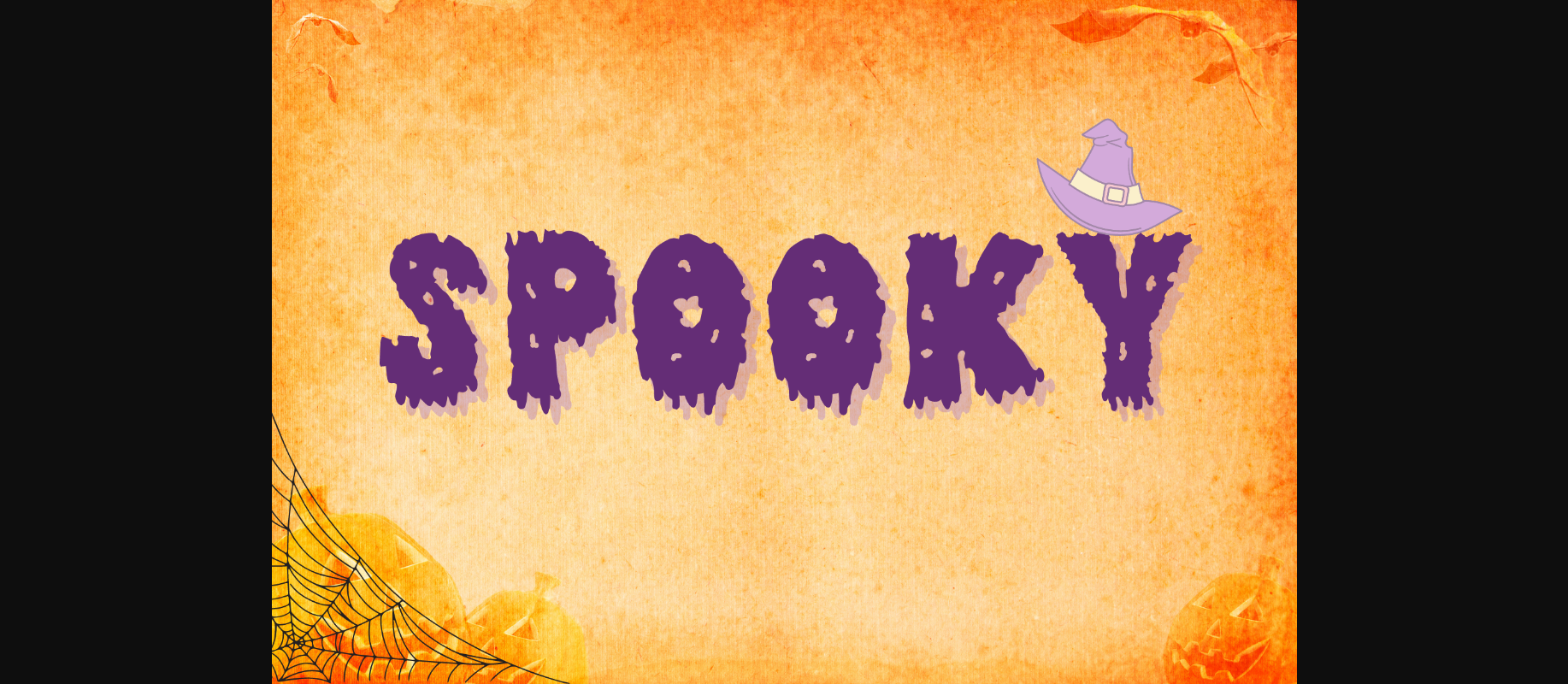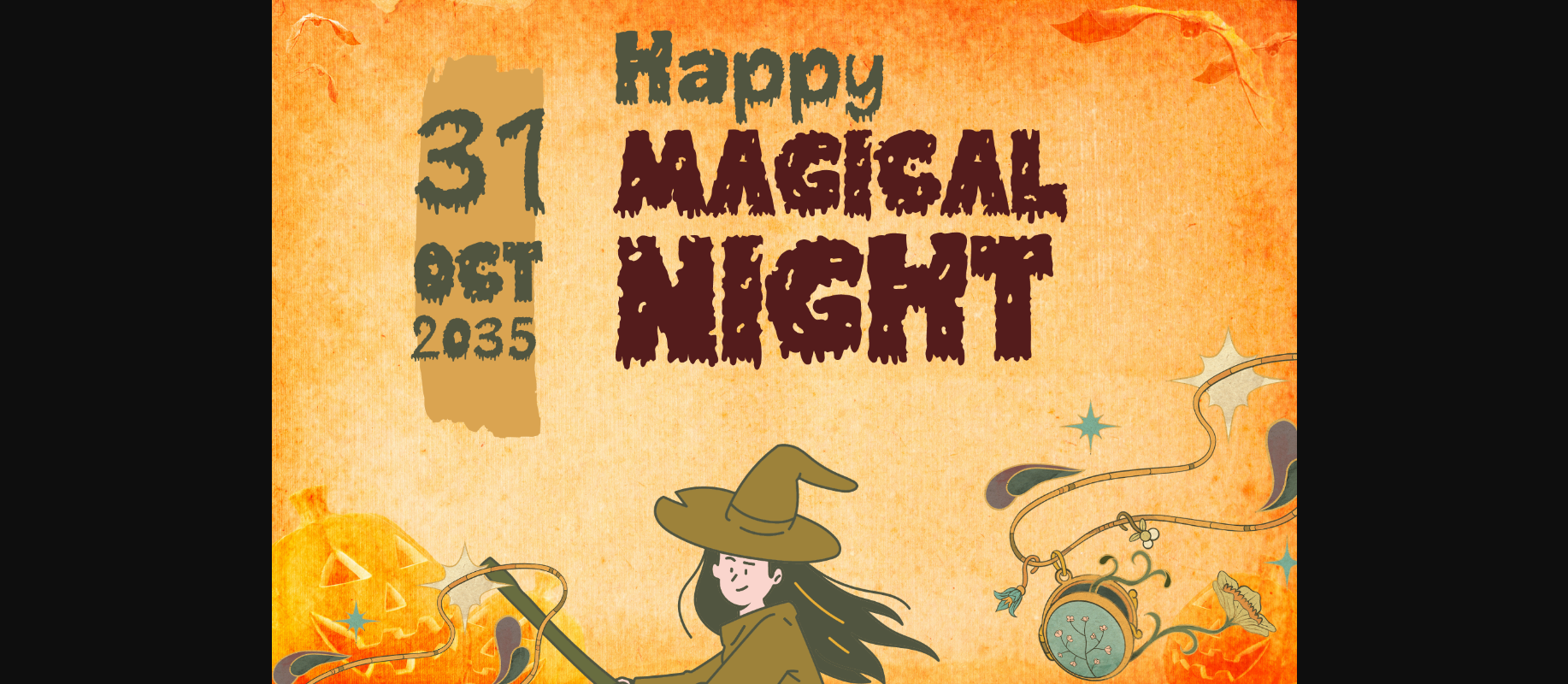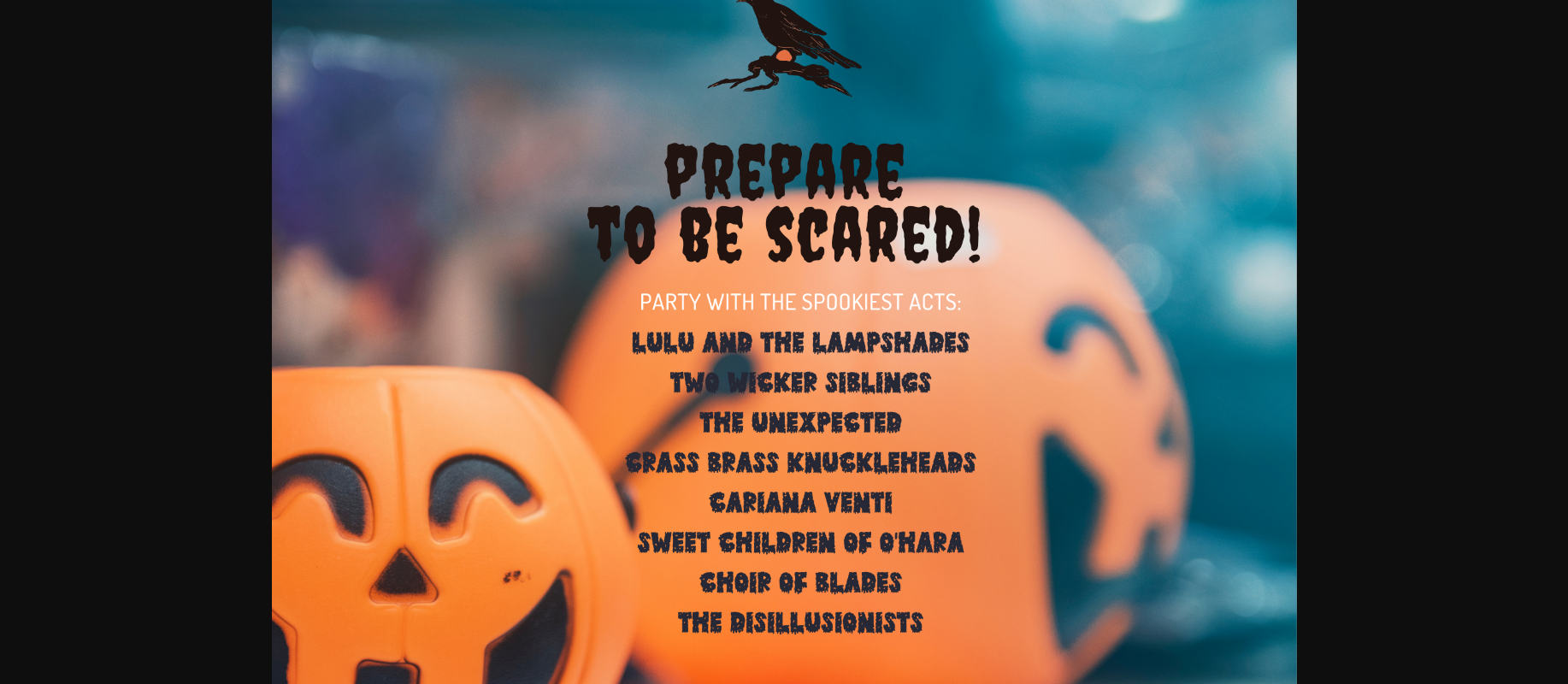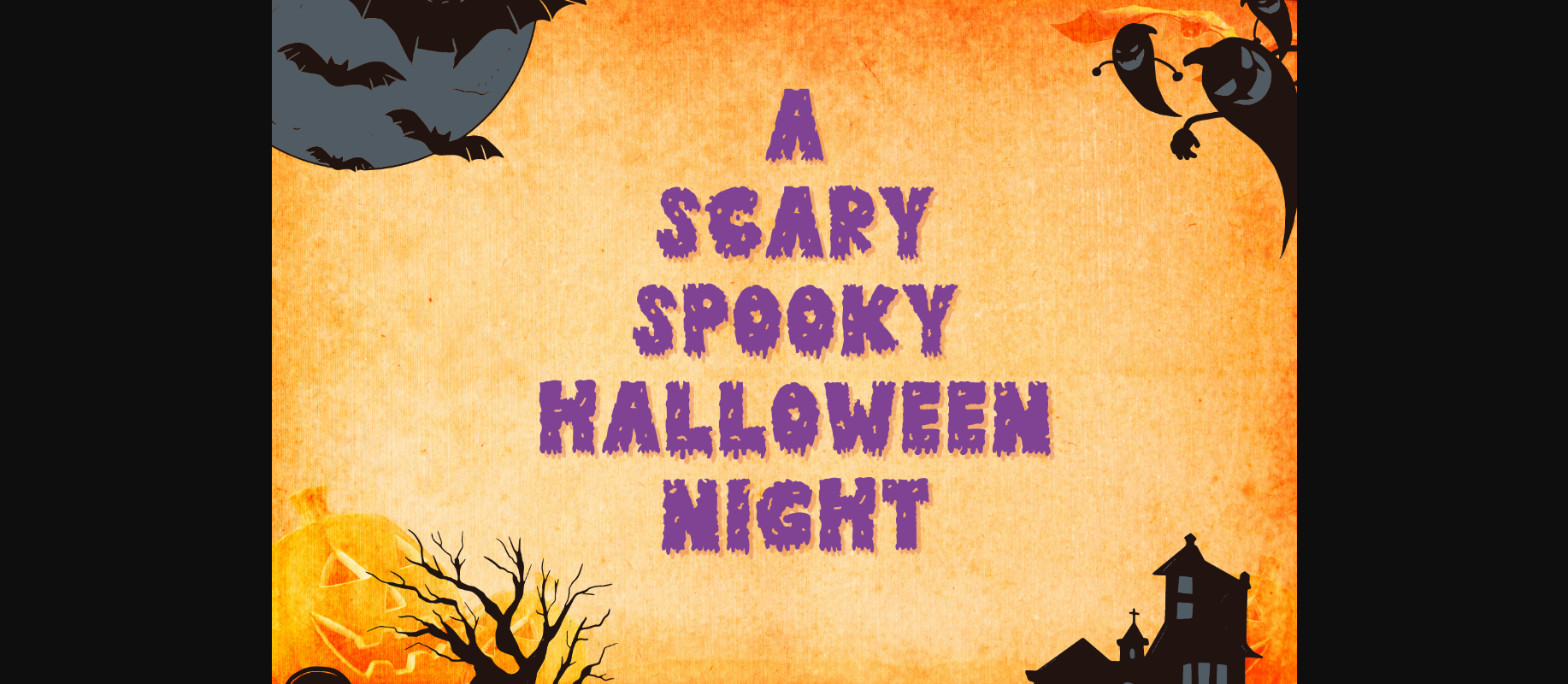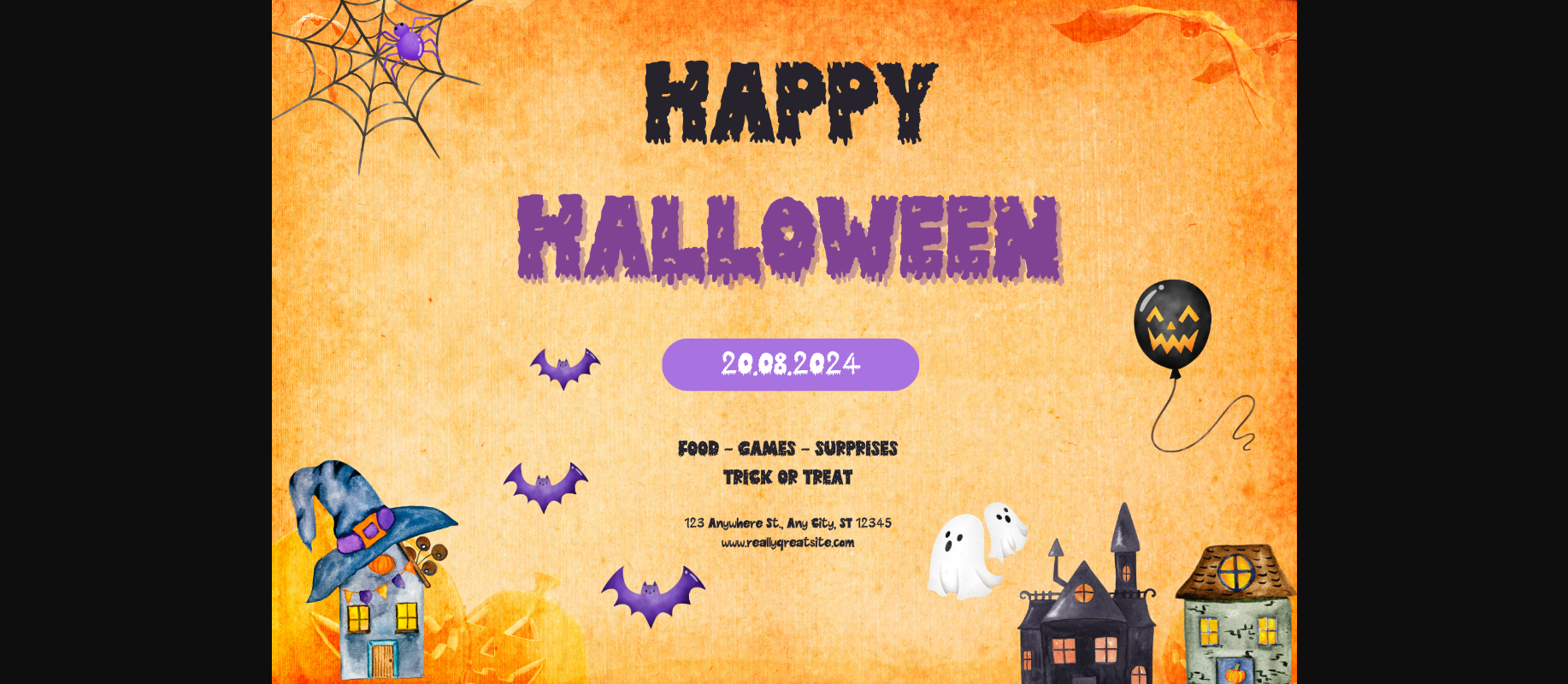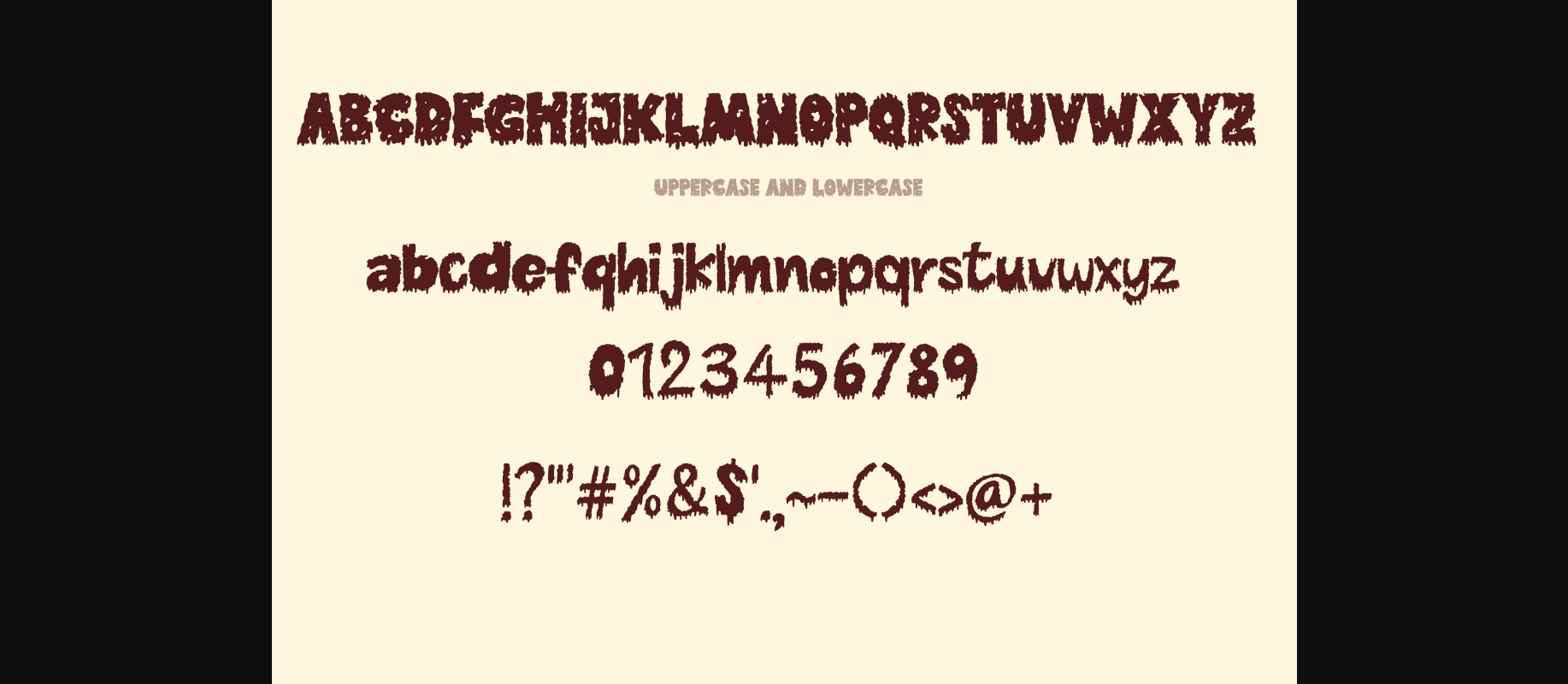
Spooky Font
About Spooky Font
Spooky is a unique, cool, and decorative font. Add it confidently to your favorite creations. This font is perfect for a design that requires a playful accent. Party Days are suitable for book covers, posters, packaging, merchandise, logotype, and much more.